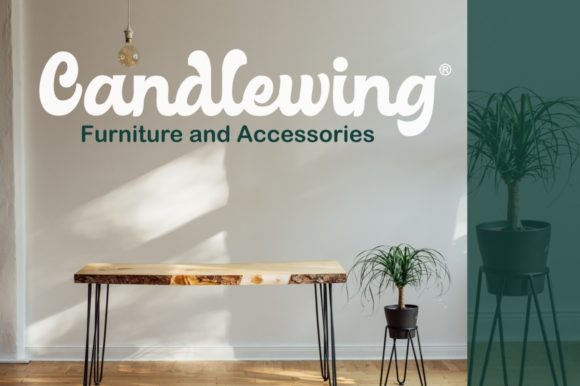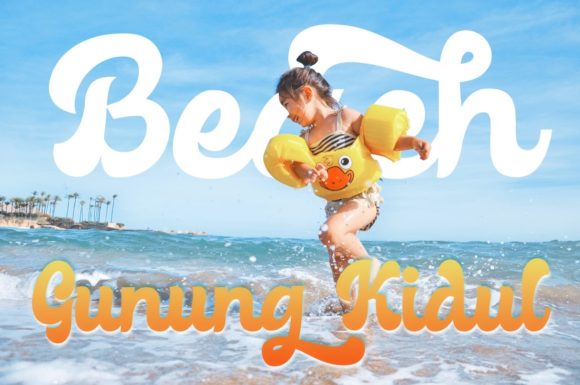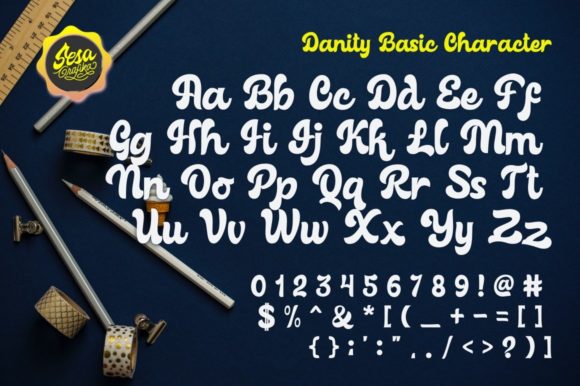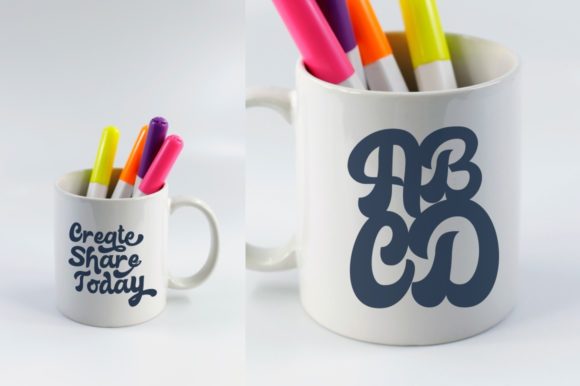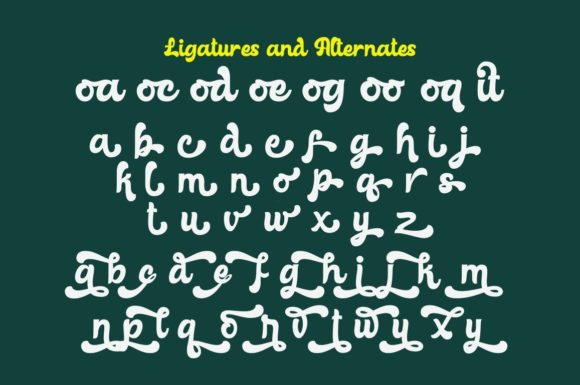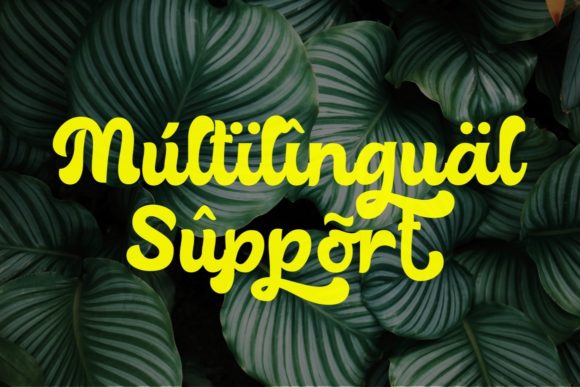
Introducing Danity Font: A Stunning Retro-Styled Display Font
Are you looking for a font that can add a touch of elegance and sophistication to your design projects? Look no further than Danity Font, a gorgeous and retro-styled display font that’s perfect for a wide range of applications. With its unique blend of classic and modern elements, Danity Font is sure to make your designs stand out from the crowd.
What Makes Danity Font So Special?
Danity Font is a beautifully crafted font that’s designed to evoke the nostalgia of a bygone era. Its retro style is reminiscent of vintage posters, advertisements, and logos from the 1950s and 60s, but with a modern twist that makes it perfect for contemporary designs. Whether you’re working on a branding project, a website, or a craft project, Danity Font is sure to add a touch of sophistication and glamour.
Key Features of Danity Font
- Retro Style: Danity Font boasts a unique retro style that’s perfect for designers who want to add a touch of nostalgia to their work.
- Display Font: Danity Font is a display font, which means it’s designed to make a statement. It’s perfect for headlines, titles, and other large-format text.
How to Use Danity Font in Your Designs
Danity Font is a versatile font that can be used in a wide range of design projects, including:
- Branding: Use Danity Font to create stunning logos, business cards, and other branding materials.
- Web Design: Add Danity Font to your website to create eye-catching headlines and titles.
- Crafting: Danity Font is perfect for crafters who want to add a personal touch to their projects, such as handmade cards, scrapbooking, and DIY crafts.
- Graphic Design: Use Danity Font to create stunning posters, flyers, and other graphic design projects.
Tips for Getting the Most Out of Danity Font
Here are a few tips for getting the most out of Danity Font:
- Experiment with Different Sizes: Danity Font looks great in large and small sizes, so don’t be afraid to experiment with different sizes to find the one that works best for your project.
- Pair it with Other Fonts: Danity Font pairs well with a wide range of other fonts, so try pairing it with different fonts to create a unique look.
- Use the Swashes: The swashes in Danity Font are a great way to add a personal touch to your designs. Don’t be afraid to experiment with different swashes to find the one that works best for your project.